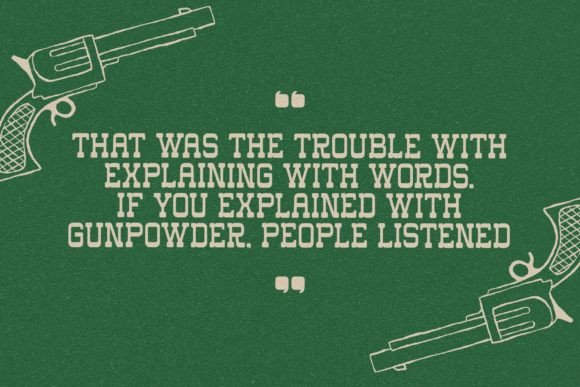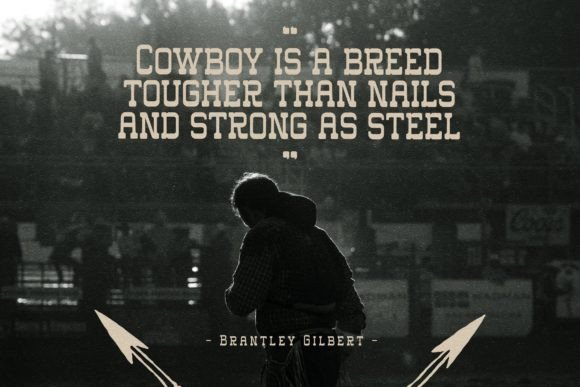
Western Carlo Font
Western Carlo is a retro display font that is based on slab serif font. Although retro is not only suitable for vintage designs, it is also suitable for modern designs such as magazine headlines or advertisement headlines. Because of the bold body, this font has a strong impression.